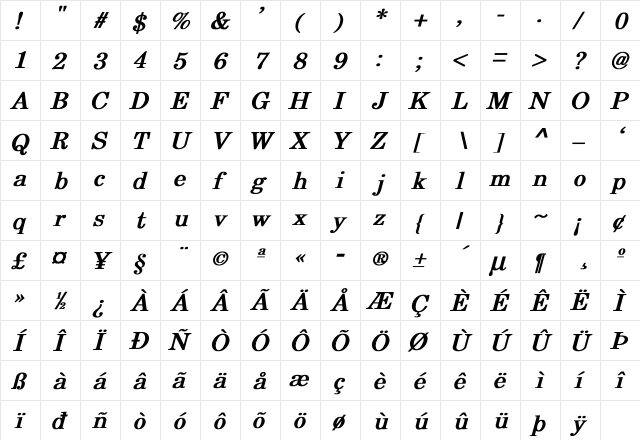
Eureka Bold Italic
Design Context for Eureka Typeface
Eureka is a composed and adaptable typeface that performs quietly and consistently across a wide range of design contexts. The slanted form adds forward momentum and visual energy. The heavy weight commands attention and anchors typographic hierarchies.
Pro Tip: Try Eureka for annotation and caption copy alongside an upright companion — the contrast in angle creates a dynamic but ordered typographic system.